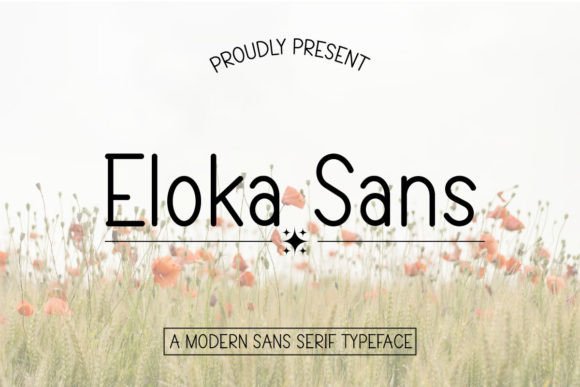
Unleash Your Creativity with Eloka Sans Font: The Ultimate Sans Serif Font for School Papers and Beyond
Dive into the world of typography with Eloka Sans Font, a captivating sans serif creation by Masyafi Studio. This remarkable font exudes charm and elegance, making it the perfect choice for crafting stunning school papers and igniting your imagination for countless creative projects.
Step into a world of boundless possibilities as you explore the intricate details of Eloka Sans Font. Its clean lines and playful style will add a touch of whimsy to your designs, capturing the attention of readers and leaving a lasting impression. With its versatile nature, this font seamlessly adapts to a wide range of projects, from school assignments and presentations to captivating social media posts and eye-catching branding materials.
Embrace the Back-to-School Spirit:
The inspiration behind Eloka Sans Font lies in the vibrant energy of back-to-school season. Its design evokes the excitement of new beginnings, the joy of learning, and the boundless possibilities that lie ahead. Whether you're creating posters, worksheets, or personalized notebooks, this font will infuse your designs with a touch of scholastic charm.
Craft Projects That Sparkle:
Unlock your inner artist and transform your creative ideas into tangible works of art with Eloka Sans Font. Its playful lines and cheerful demeanor make it the perfect companion for designing bags, book covers, labels, and planners that burst with personality. Bring your imagination to life and create unique items that reflect your style and inspire those around you.
Branding and Marketing Materials That Stand Out:
Make a bold statement in the world of branding and marketing with Eloka Sans Font. Its distinctive character adds a touch of individuality to logos, business cards, and promotional materials, ensuring that your brand stands out from the crowd. Capture the attention of potential customers and leave a lasting impression that will keep them coming back for more.
Endless Creative Possibilities:
The versatility of Eloka Sans Font extends far beyond the classroom and the office. Let your creativity soar as you explore its potential in wall hangings, Cricut projects, stickers, and countless other crafts. This font is your passport to a world of endless possibilities, where your imagination is the only limit.
Experience the Eloka Sans Font Difference:
Join the growing community of designers, educators, and creative enthusiasts who have embraced Eloka Sans Font as their go-to font for projects of all kinds. Its charm, versatility, and endless creative possibilities make it an essential tool for anyone looking to add a touch of magic to their designs and bring their ideas to life.